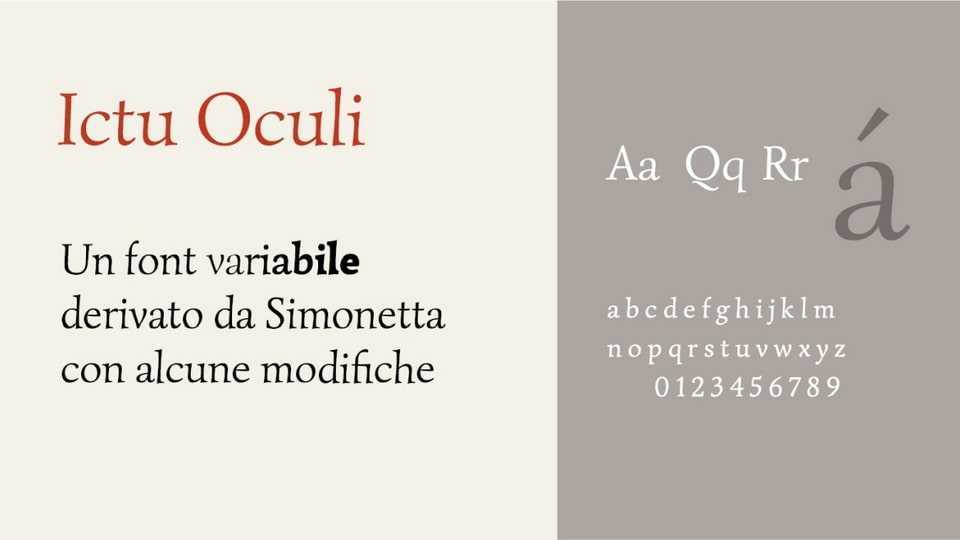
Download Ictu Oculi font, a variable serif typeface based on the Simonetta font. Ictu Oculi font draws inspiration from the timeless elegance of Italian Humanistic typefaces, reinterpreted with a contemporary edge.